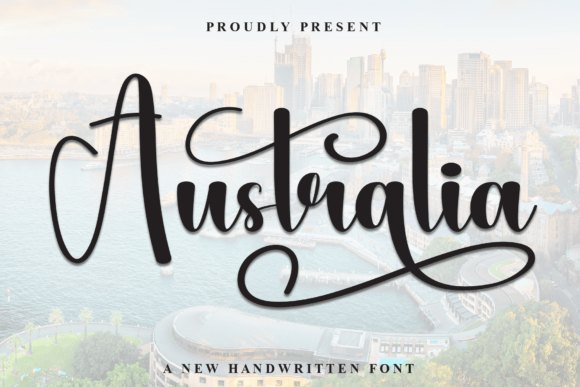
The Elegant Charm of Australia Font: A Designer’s Delight
Have you ever been in the middle of a design project, and suddenly, you’re stuck on finding the perfect font? I recall a recent experience where I was working on a wedding invitation design, and my client specifically asked for a font that exuded elegance and playfulness. After hours of searching, I stumbled upon the Australia Font, and it was love at first sight! ✨ In this article, I’ll share my journey with this beautiful font, its features, and how to make the most of it in your designs.
As a designer, I’m always on the lookout for fonts that can elevate my projects. Here’s my honest review of the Australia Font:
- ✅ Elegant and Playful: The Australia Font strikes the perfect balance between elegance and playfulness, making it suitable for a wide range of design projects.
- ✅ Flowing Curves: The font’s flowing curves and natural rhythm give it a charming, personal touch that’s hard to find in digital fonts.
- ✅ Versatile: From invitations to branding and social media graphics, this font adapts seamlessly to various design contexts.
While I adore the Australia Font, there are a few minor quirks to consider:
- ⚠️ Limited Use in Small Sizes: Due to its elegant and cursive nature, the font may not be the best choice for very small text sizes, as it can become difficult to read.
- 🤔 Glyph Limitations: Some users might find the glyph options a bit limited, especially when compared to more extensive font libraries.
While the exact origin of the Australia Font remains a mystery, it’s clear that its designer aimed to capture the essence of elegance and playfulness. Imagine a designer sitting on a sunny Australian beach, inspired by the flowing curves of nature and the rhythmic waves of the ocean. This font is a testament to the beauty of handwritten scripts and the creative process.
| What makes the Australia Font unique? | The Australia Font stands out due to its elegant yet playful strokes, flowing curves, and natural rhythm, making it perfect for projects that require a personal touch. |
| Is the Australia Font suitable for body text? | While beautiful, the Australia Font is more suited for headings and short paragraphs due to its elegant and cursive nature. For body text, a more readable font is recommended. |
The Australia Font is a versatile and charming addition to any designer’s toolkit. Its elegant strokes and playful rhythm bring a unique touch to various projects, from formal invitations to creative branding. By understanding its features and limitations, you can make the most of this beautiful font and elevate your designs to new heights.